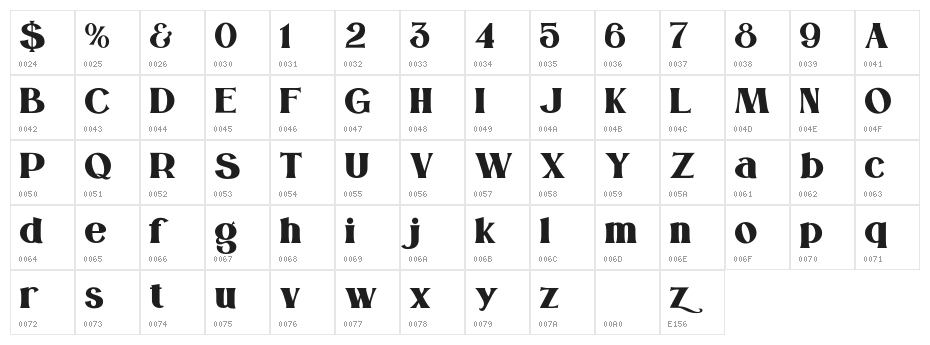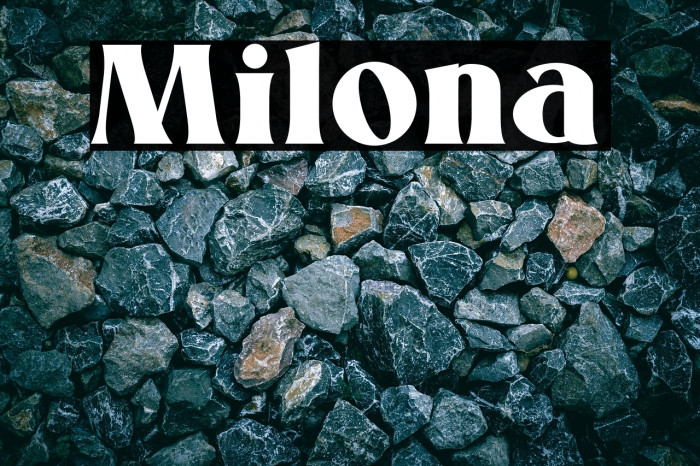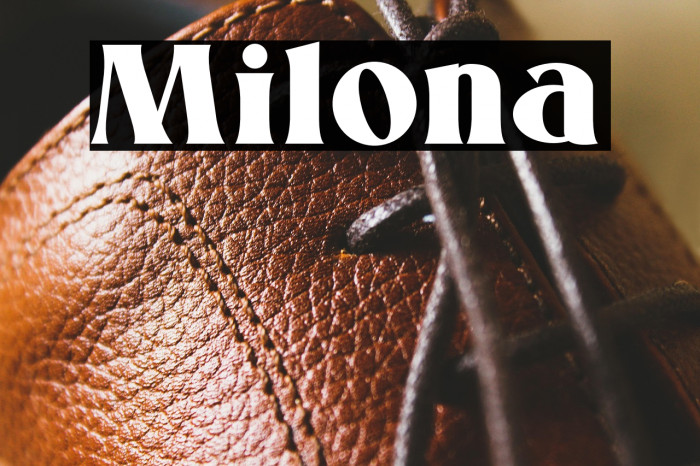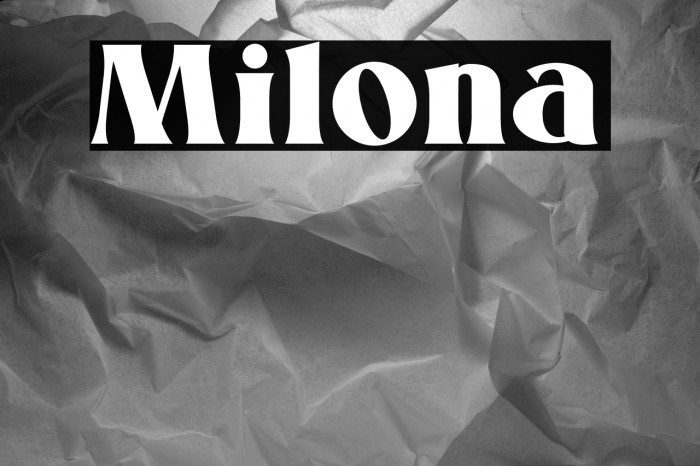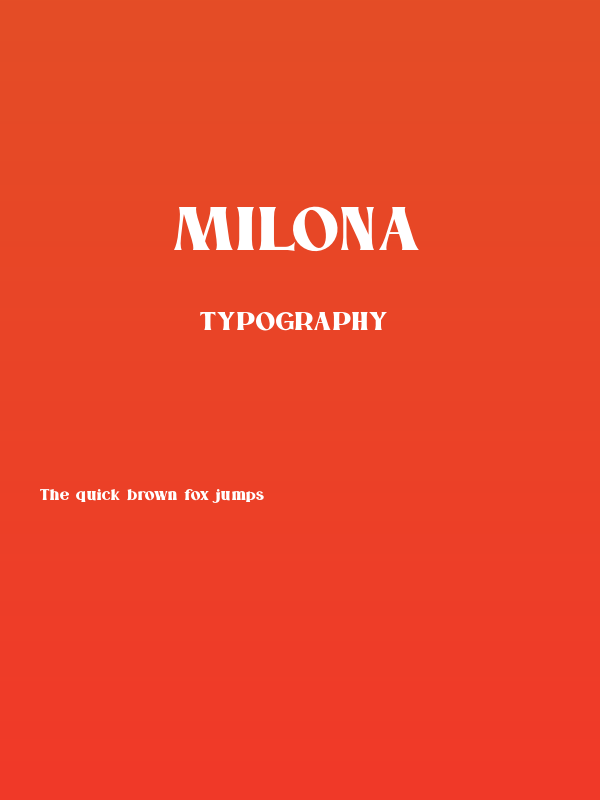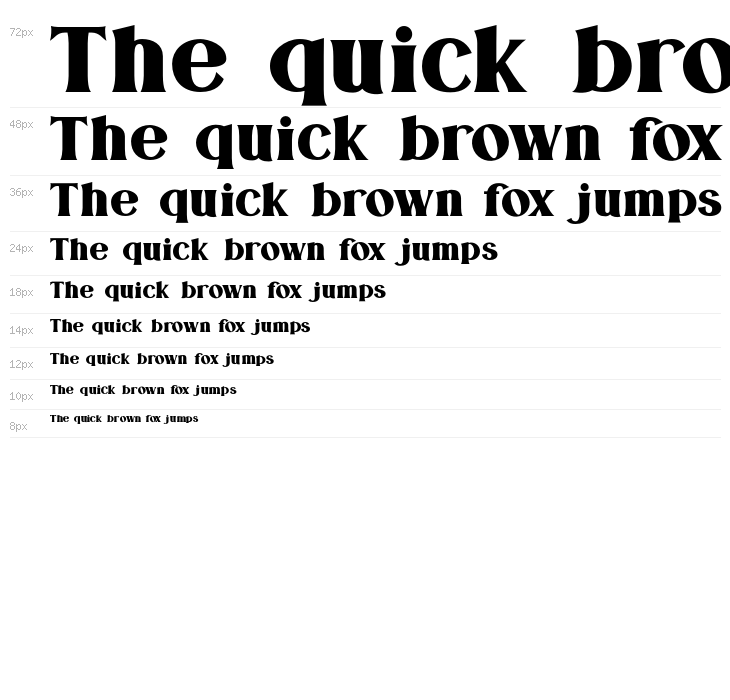
Milona Font
| Progetti proposti | Perfect for headlines, branding, posters, and editorial design where a strong, authoritative presence is desired. |
Milona